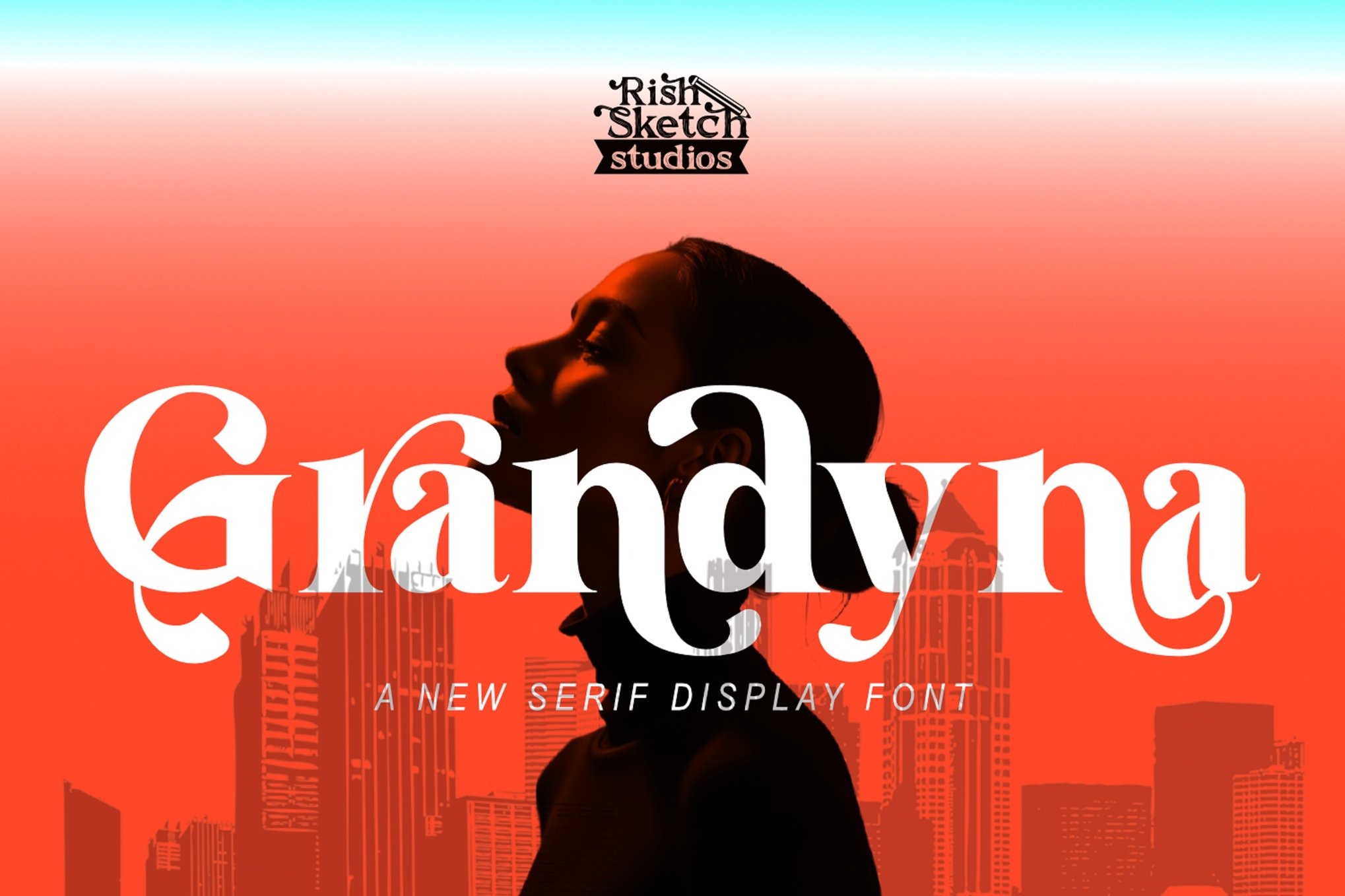
Grandyna Font
Grandyna Font is a versatile font designed to adapt beautifully across different design styles, offering dependable readability and balance. Grandyna – Modern Serif Display Font, from Rishsketch Studios, is a premium Modern Serif Display Font, perfect for any project that requires a distinctive, and premium feel.